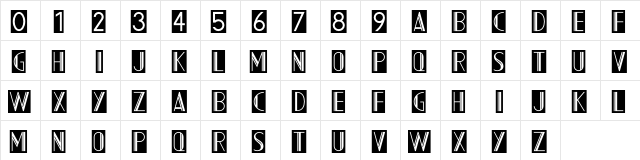
AC Mountain Inverted
| Foundry | Adrian Candela |
| Designer | Adrian Candela |
Design Context for AC Mountain Typeface
AC Mountain is a composed and adaptable typeface that performs quietly and consistently across a wide range of design contexts.